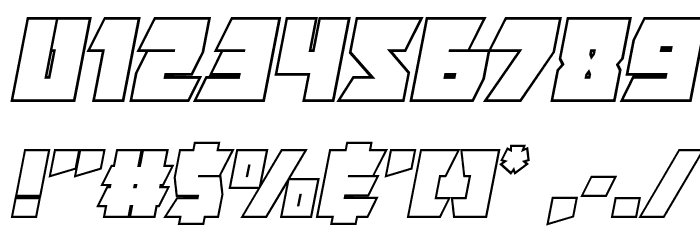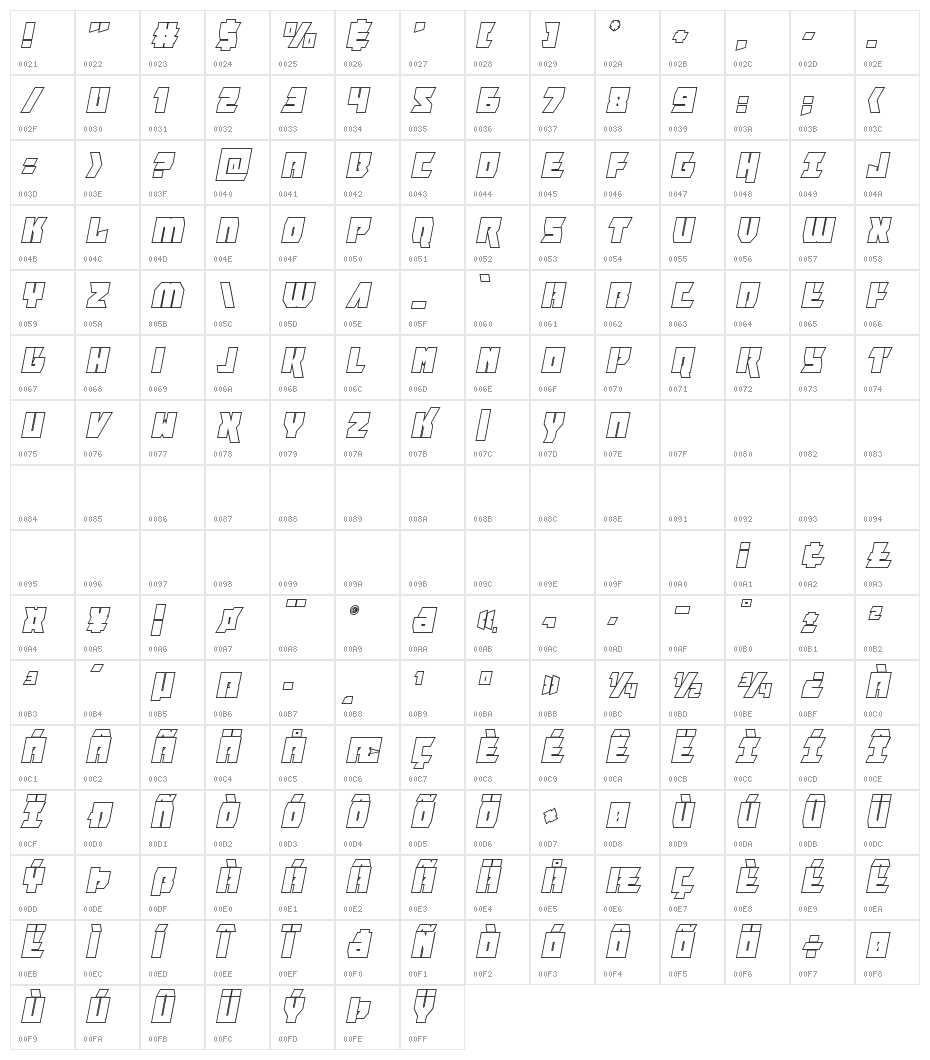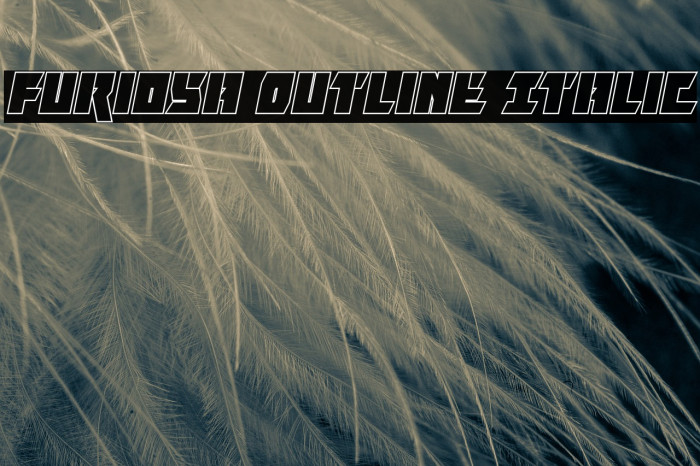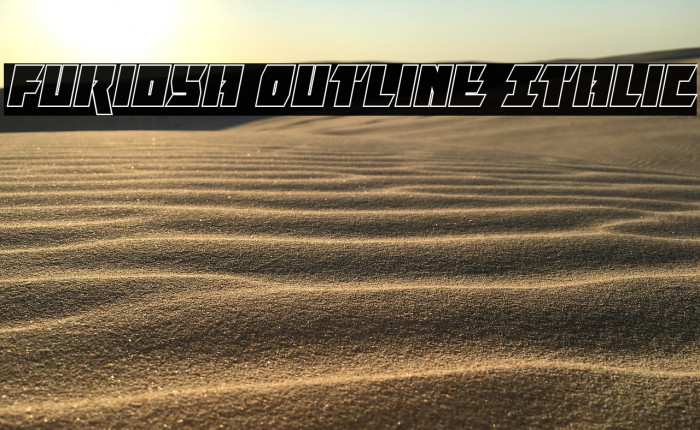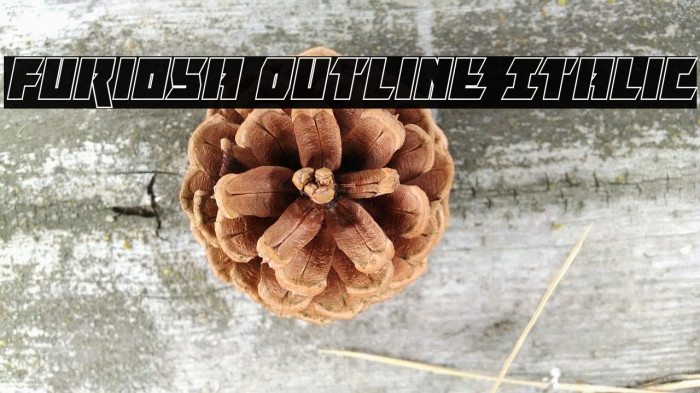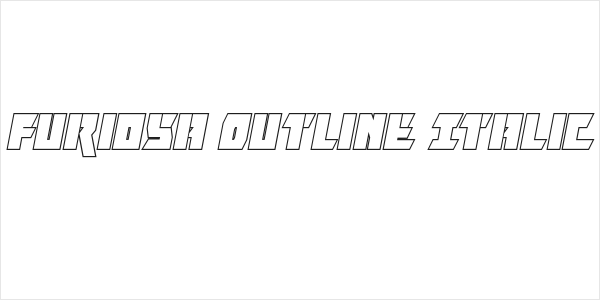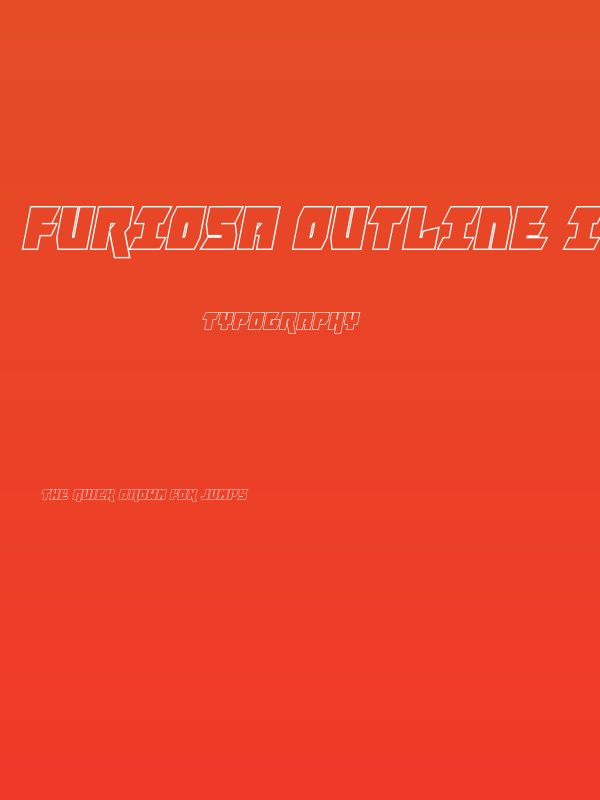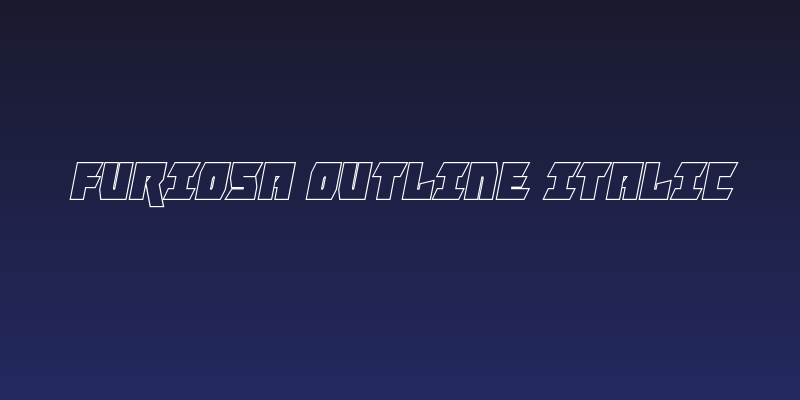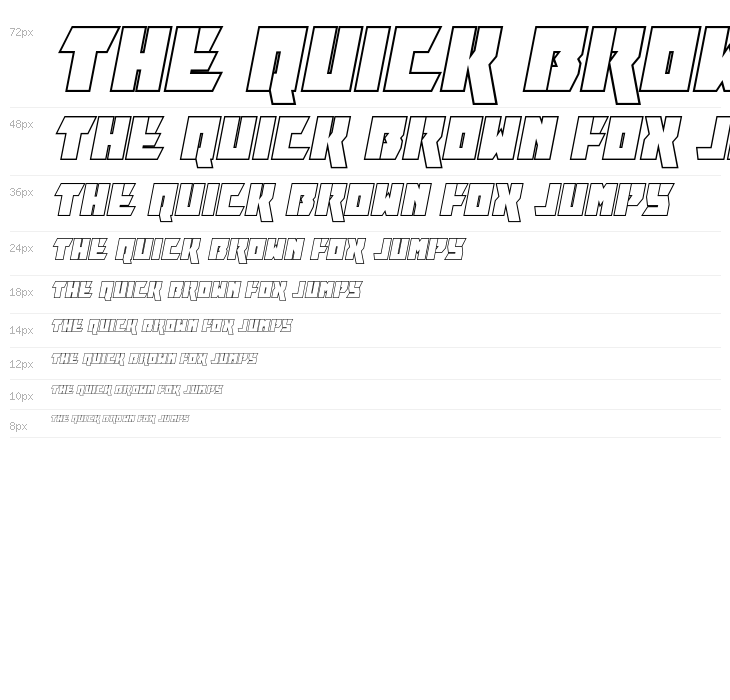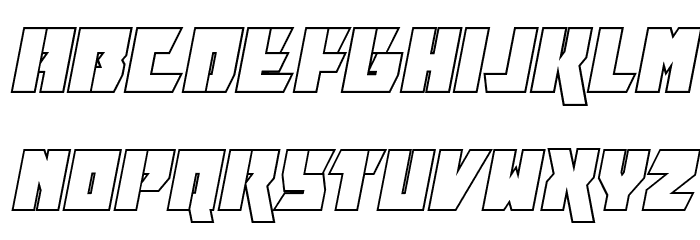
Furiosa Outline Italic Font
Furiosa Outline Italic Description
This font features a bold, angular design with a distinct outline style that gives it a futuristic and edgy appearance. The characters are italicized, adding a dynamic and forward-leaning aspect to the overall look. Each letter and number is crafted with sharp edges and geometric shapes, creating a sense of movement and energy. The outline effect enhances the three-dimensional feel, making the characters stand out prominently. This font is particularly striking in its uppercase form, with consistent line thickness and a uniform slant across all characters. The special characters maintain the same bold outline and angular style, ensuring a cohesive look throughout the font set.
| Overall Style | Futuristic, Edgy |
| Proposed Projects | Ideal for sci-fi themed projects, video game titles, posters, and branding that requires a modern, edgy look. |